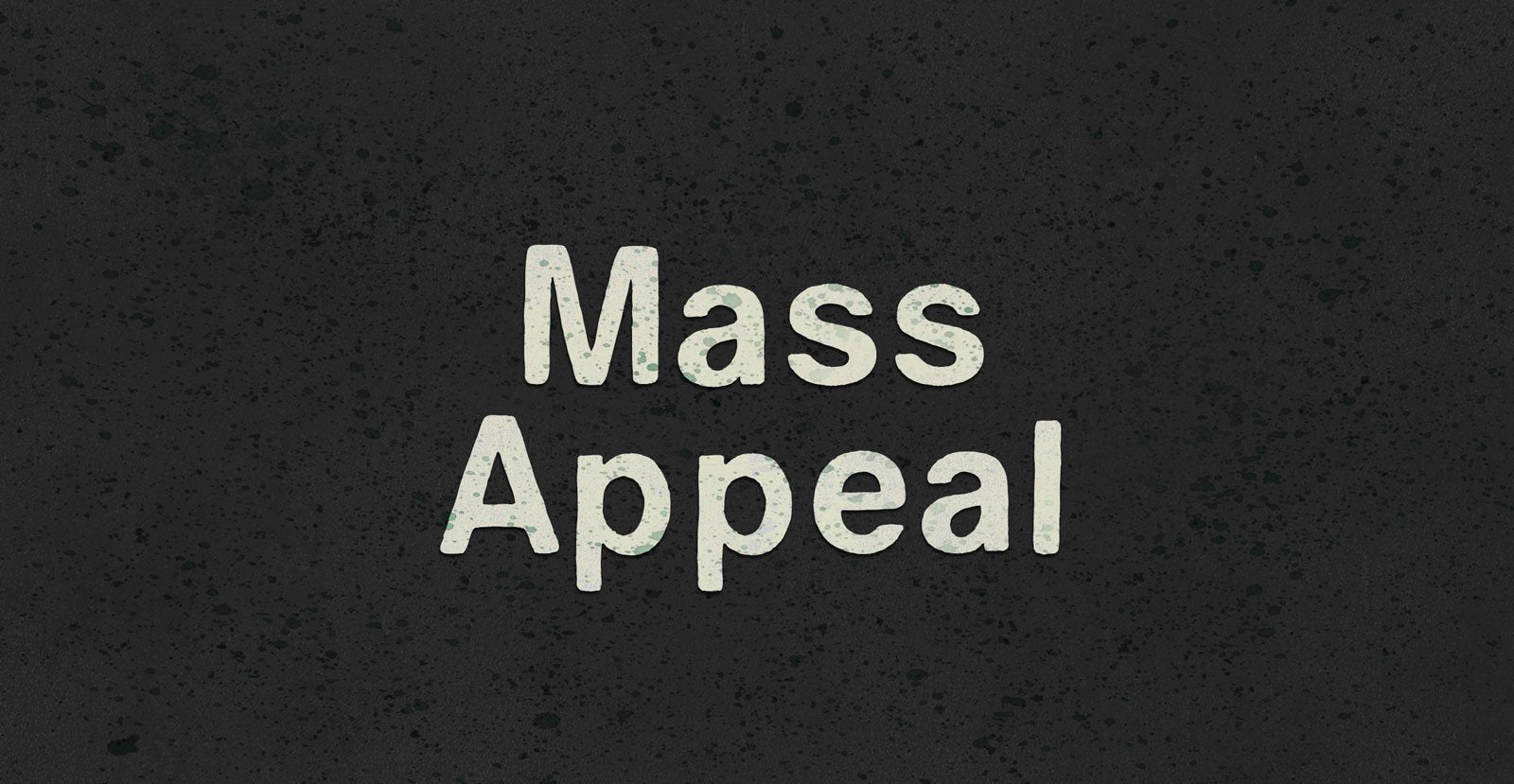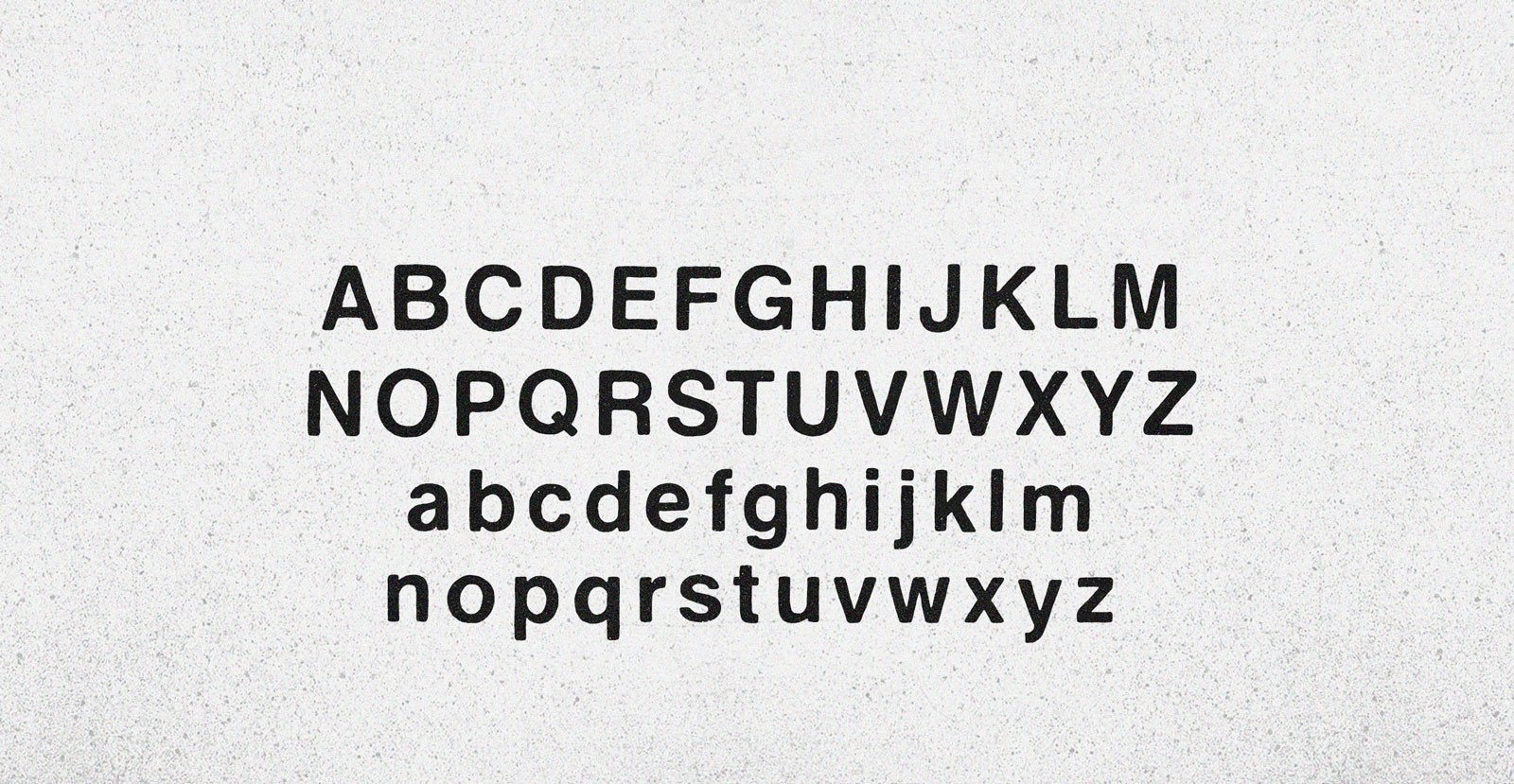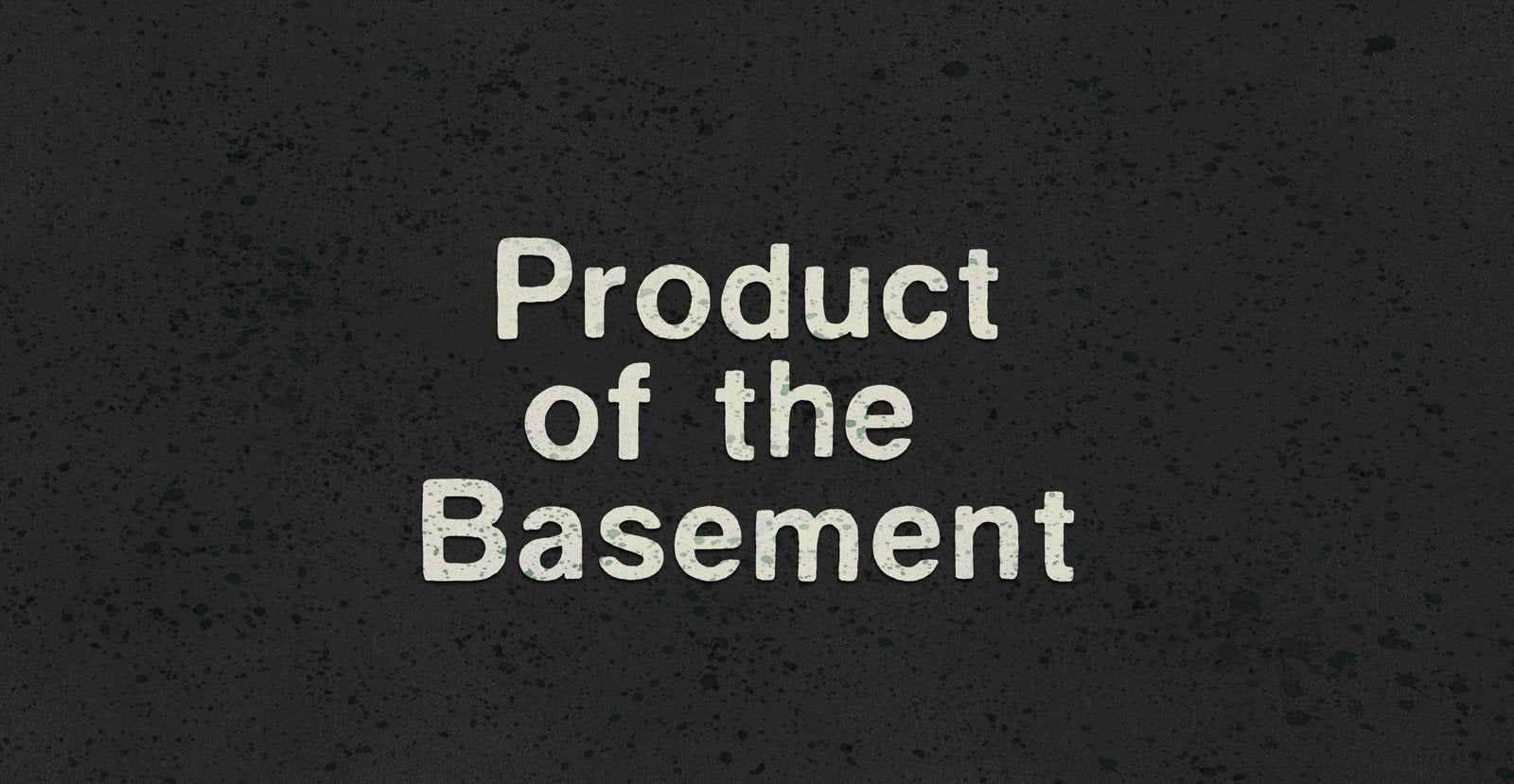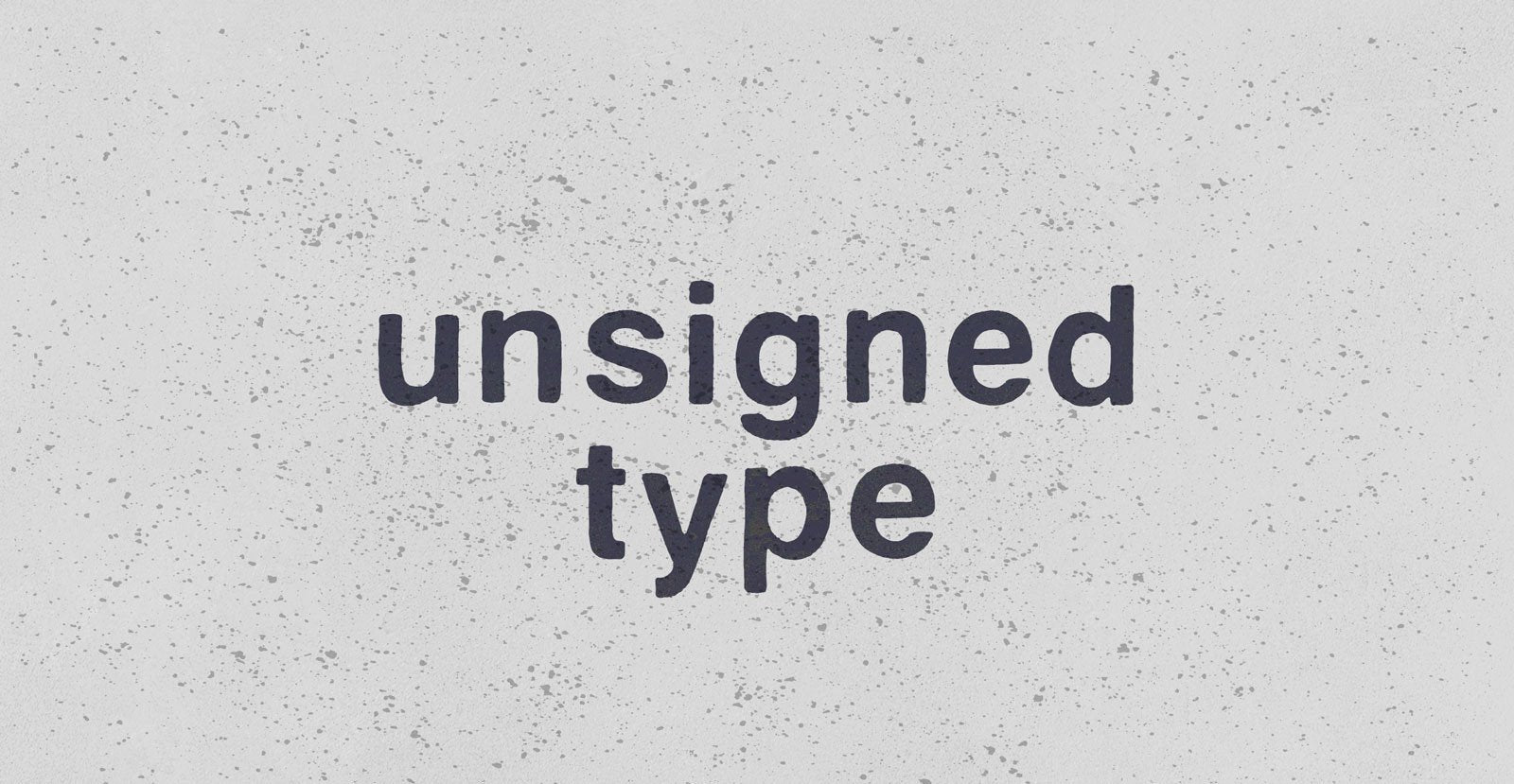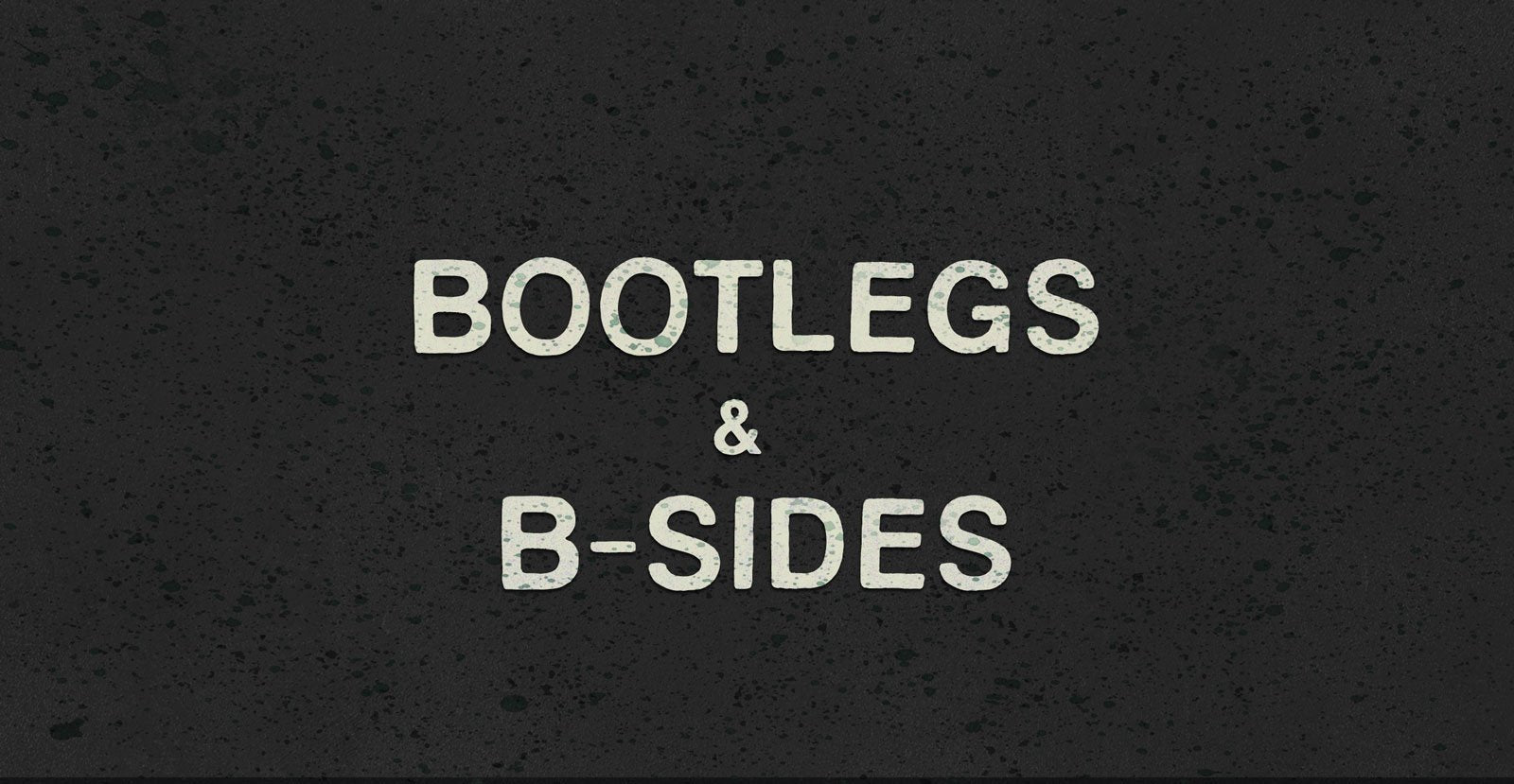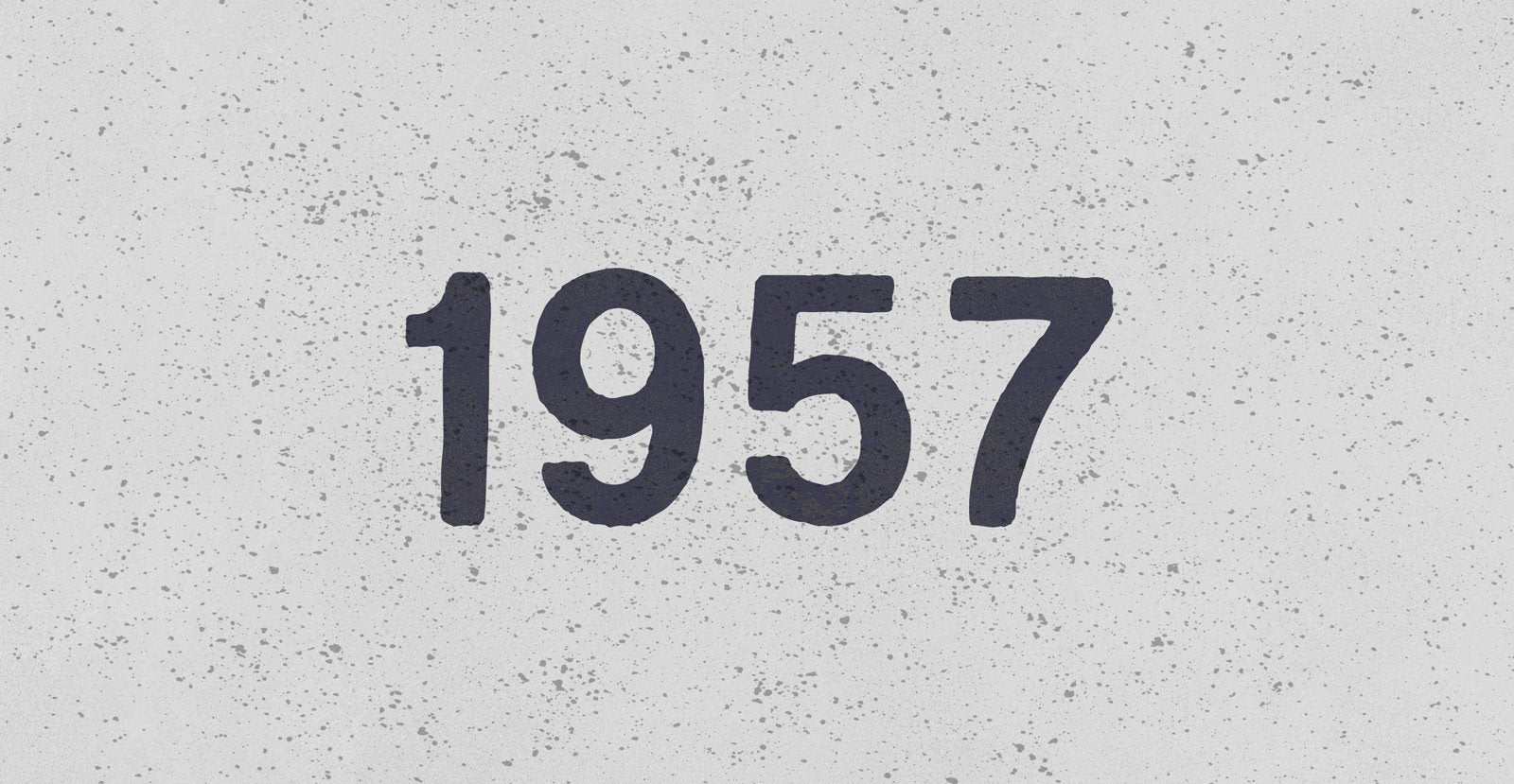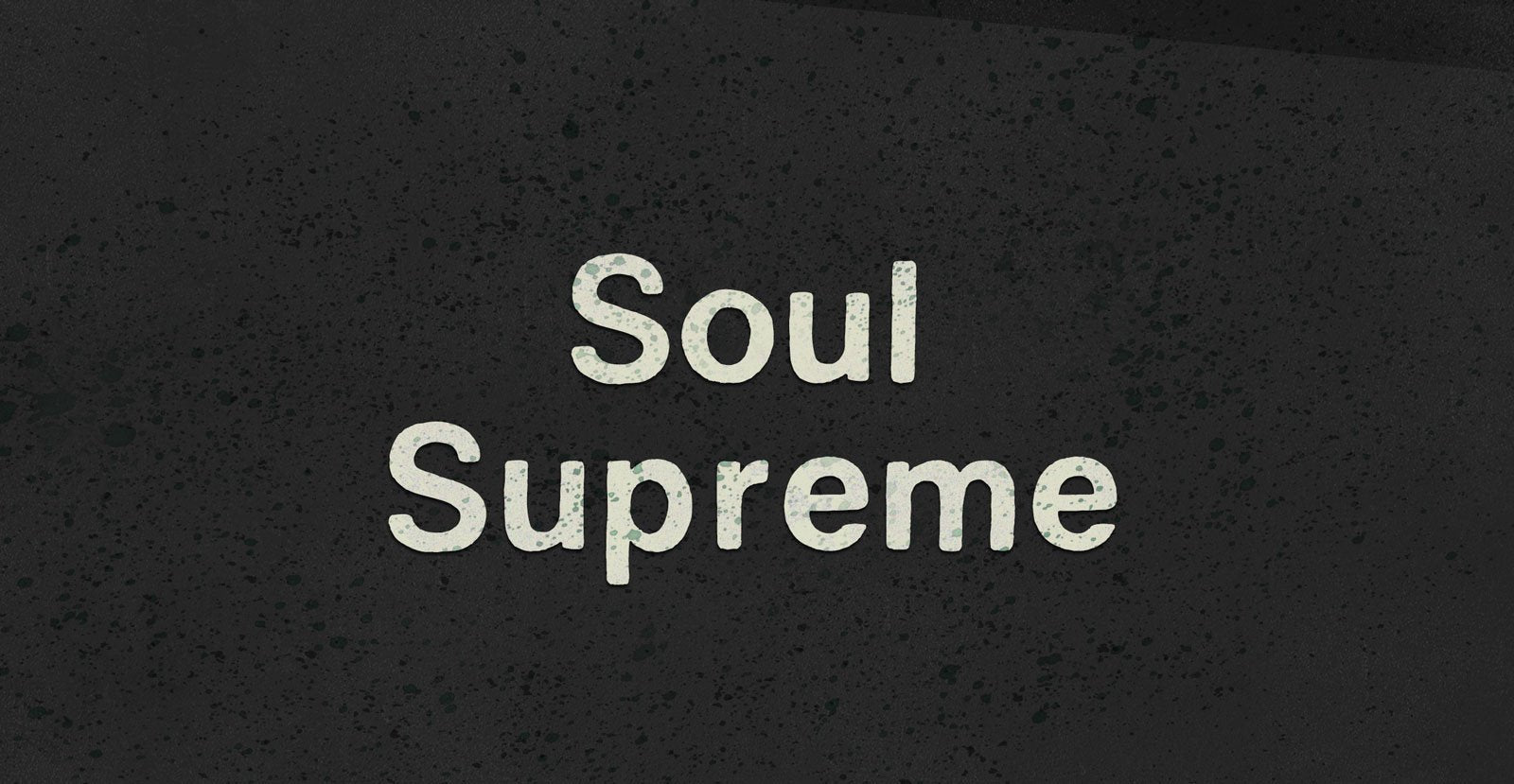
Mass Appeal
Handwritten Sans Serif Font
Down but standing tall under the weight of having it all. Above the clouds, or holding it down on the ground, the solution to and absolution of all problems with gravity: a pillar of planetary Mass Appeal.